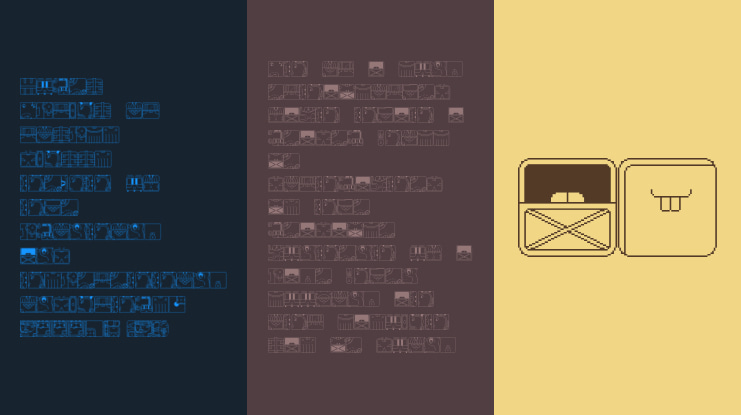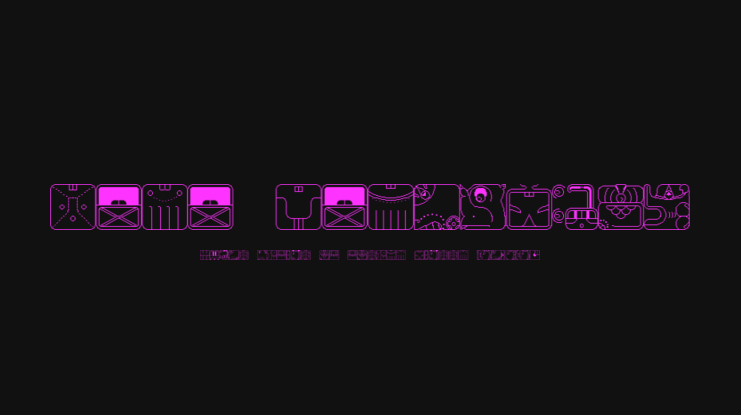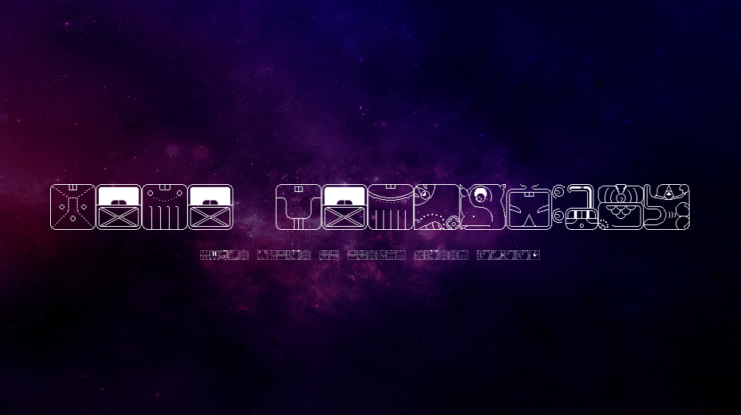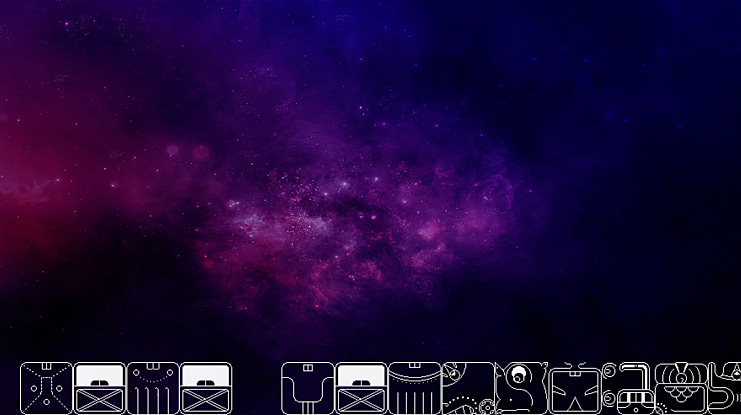
Maya Calendric Font
Inspired from "An Outline Dictionary of Maya Glyphs: With a Concordance and Analysis of Their Relationships" (William Gates, 1931) and work from Ivan Van Laningham (http://www.pauahtun.org/Calendar/Default.htm) Thanks to them